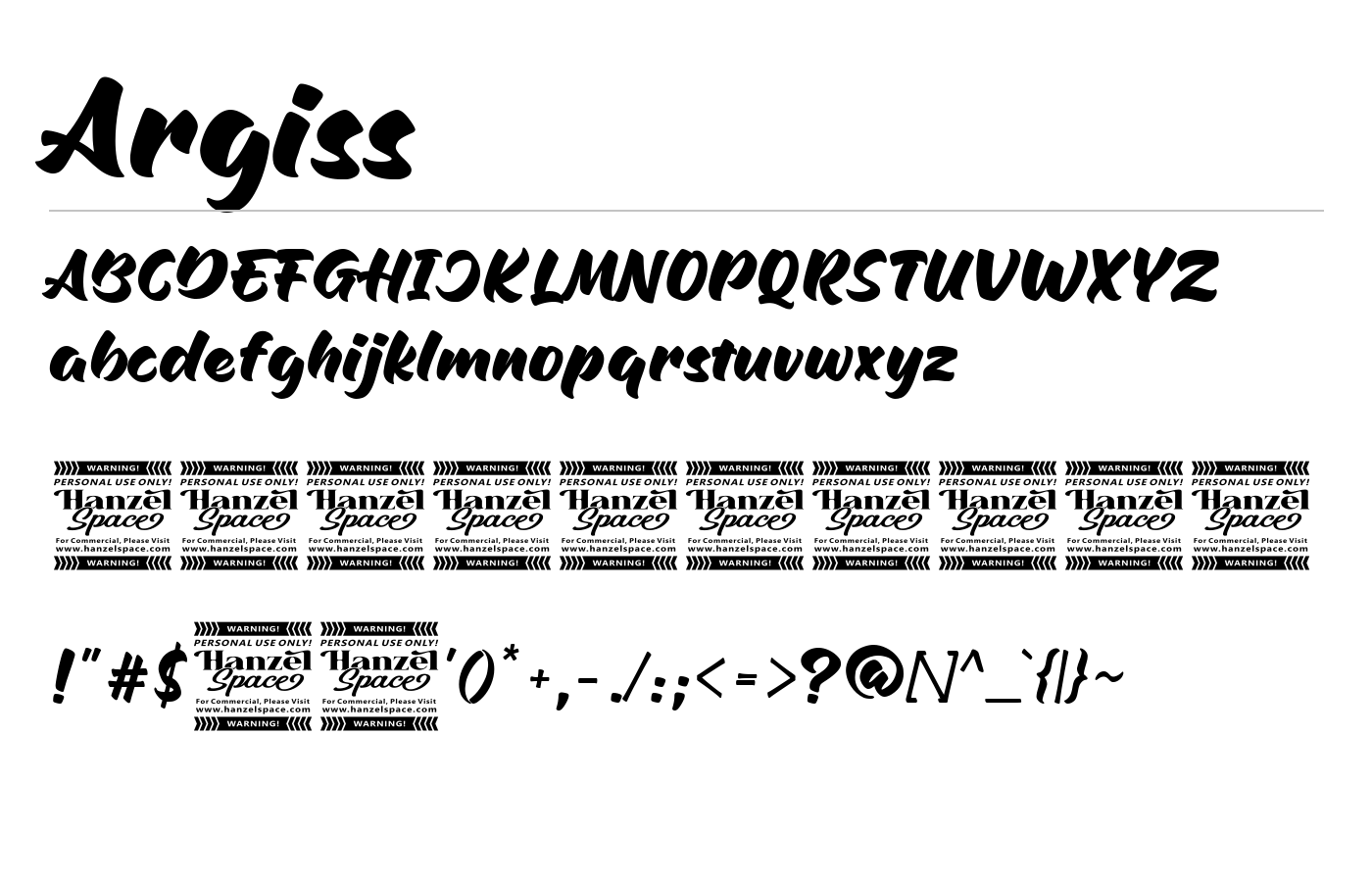
Argiss is a bold and expressive script font with smooth, rounded strokes that give it a casual yet confident feel. Its flowing letterforms and lively character shapes make it perfect for creative branding, headlines, and packaging where a warm, approachable personality is desired. This font works well in designs that aim to be friendly and dynamic without sacrificing readability.
Argiss Font
About Argiss Font